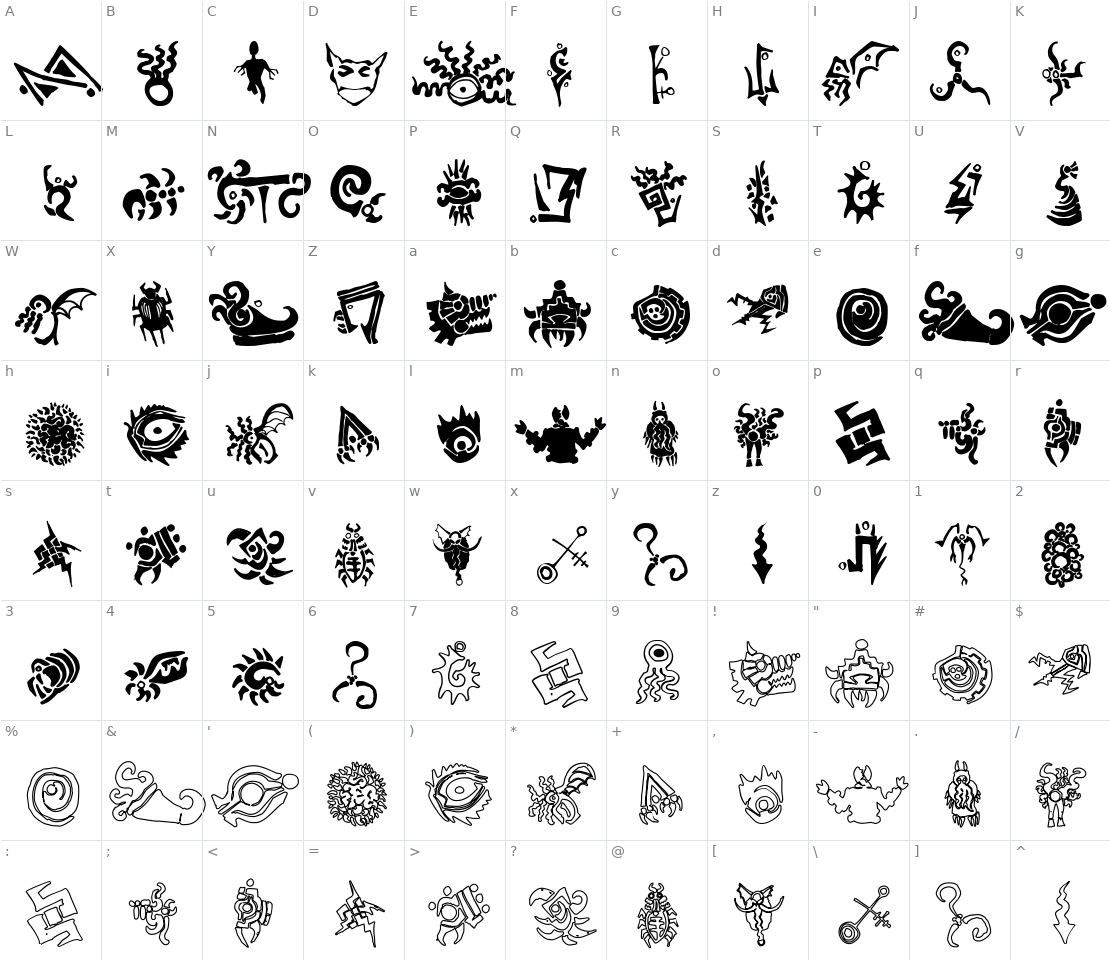
Cathzulu Extraz
by OMEGA Font Labs
Cathzulu Extraz is a symbol and ornament font from OMEGA Font Labs filled with mystical, tribal-inflected icons rather than traditional letterforms. The glyphs carry a dark, ritualistic quality, with intricate decorative shapes that feel pulled from fantasy world-building or occult illustration. Useful as accent elements in dark fantasy projects, game design, or anywhere you need atmospheric ornamental details without reaching for clip art.